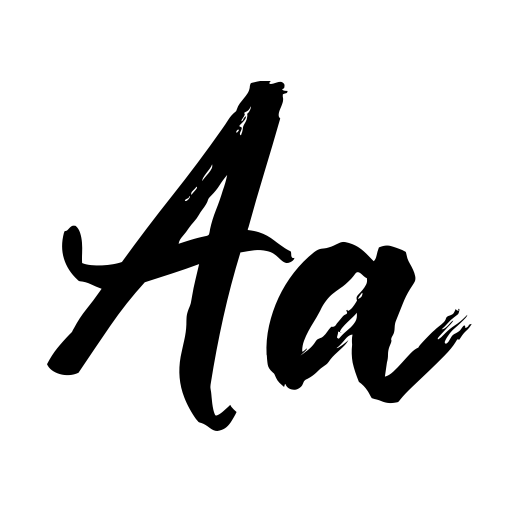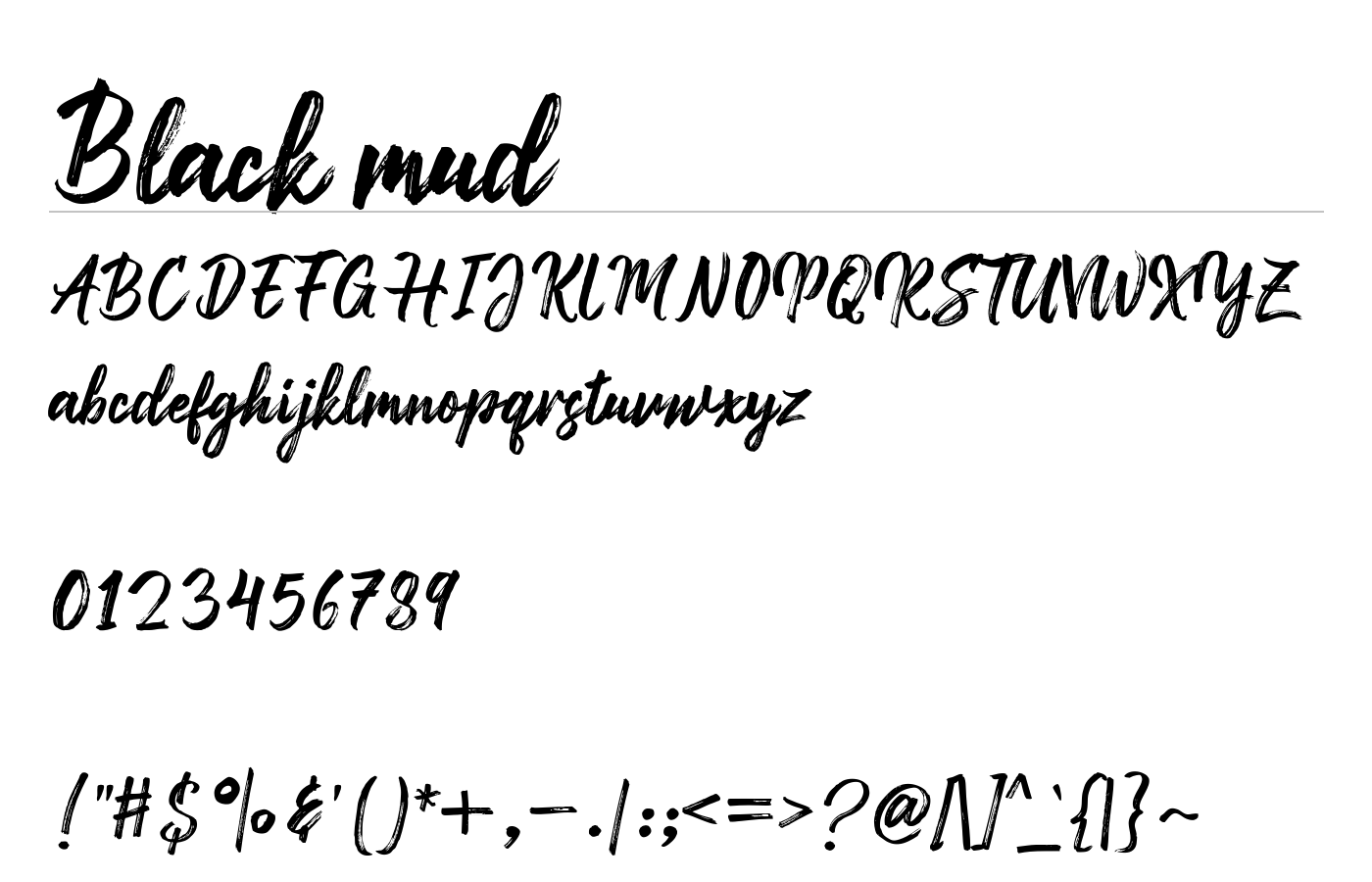
Black Mud is a bold, expressive script font characterized by its textured, brushstroke style that gives a raw, handmade feel. With its lively, slanted letterforms and a mix of thick and thin strokes, it communicates energy and creativity, making it ideal for dynamic branding, artistic logos, and eye-catching headlines. This font’s unique texture and personality suit projects that want to convey an edgy, personal, or artistic vibe.
Black mud Font
About Black mud Font